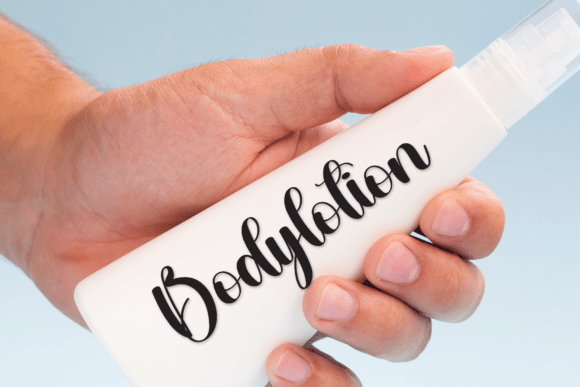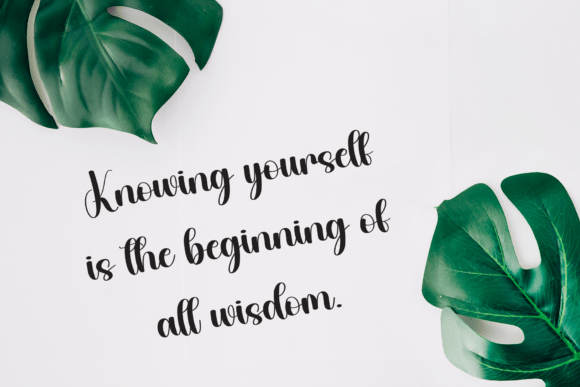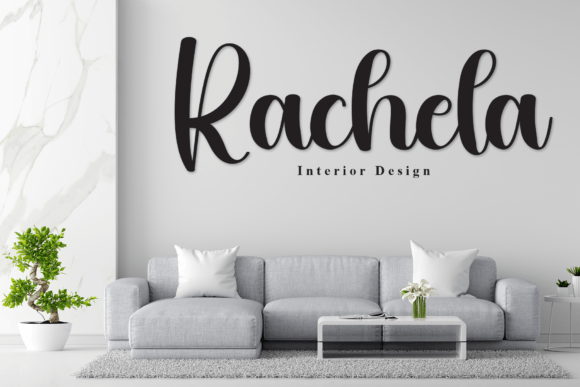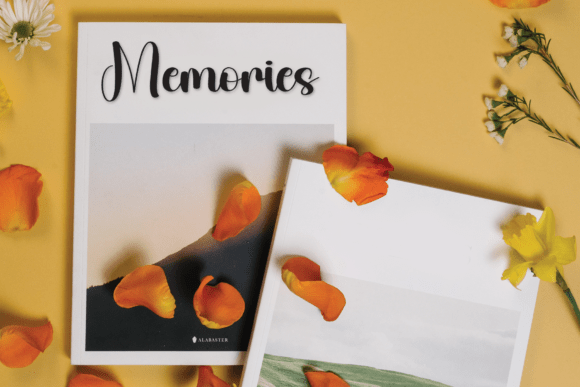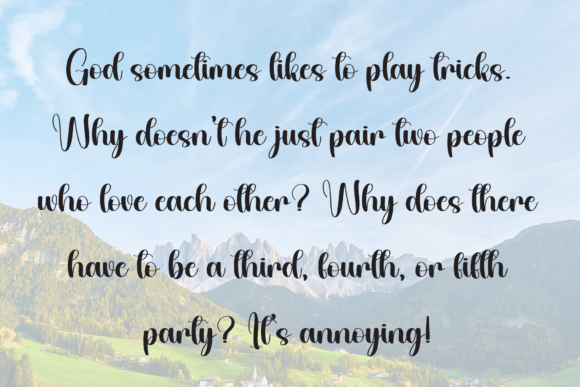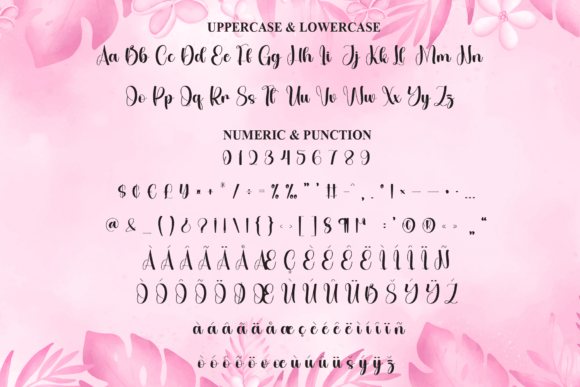
The Perfect Blend of Style and Creativity
Have you ever stared at a blank page, searching for the perfect font to bring your creative vision to life? I know I have. It’s that moment of frustration, followed by excitement, when you stumble upon the perfect font to elevate your project. For designers, finding the right font can make all the difference between a good design and a great one.
Introducing the Barbie Font, a special creative product designed to give you an extraordinary experience. This latest style letter is perfect for wall displays, wedding invitations, social media post logos, and any project that requires a touch of elegance and sophistication. With the Barbie Font, you’ll have access to a wide range of creative possibilities, making it a valuable addition to any designer’s toolkit.
Barbie Font Key Features
- Unique Characteristics: The Barbie Font is known for its playful, cursive script style with swashes and flourishes, making it perfect for feminine and child-friendly designs.
Designer Review: Barbie Font
The Barbie Font is a playful, cursive script that screams “girl power” and nostalgia. I can already imagine it being used for a kids’ birthday party invitation or a fashion magazine headline. Here are some of its strengths:
- ✨ Expressive and whimsical: The font’s flowing lines and curved strokes make it perfect for adding a touch of femininity to any design.
- ✨ Customizable: The font comes in a range of weights and styles, making it easy to adapt to different design needs.
- ✨ Versatile: From fashion to beauty to education, the Barbie Font can be used in a variety of contexts.
- ⚠️ Overly ornate: The font’s cursive style can make it difficult to read at smaller sizes or in dense blocks of text.
- ⚠️ Limited legibility: The font’s flowing lines can also make it challenging to distinguish between similar letters.
Overall, I think the Barbie Font is a fun and creative choice for designs that require a touch of femininity and playfulness. However, it may not be the best choice for serious or technical content. With careful use and attention to legibility, this font can be a great addition to any designer’s toolkit.
The Barbie font is commonly used in:
- Children’s birthday party invitations and decorations.
- Girls’ clothing and accessory labels.
- Children’s book titles and illustrations.
Tips for Getting the Most Out of the Barbie Font
For the best results, use the Barbie font in combination with pastel colors and playful graphics.
Alternatives to “Barbie Font” for Designers
Playfair Display is a high-end, elegant serif font perfect for luxury brands and high-end fashion designers. It’s ideal for creating a sense of sophistication and refinement. Playfair Display is more elegant and sophisticated compared to Barbie Font, which is more playful and childlike.
Pacifico is a beautiful, modern script font perfect for creating a relaxed and casual atmosphere. It’s ideal for designers who want to add a touch of warmth and friendliness to their designs. Pacifico is more casual and laid-back compared to Barbie Font, which is more formal and structured.
Great Vibes is a beautiful, cursive script font perfect for designers who want to add a touch of elegance and sophistication to their designs. It’s ideal for creating a sense of luxury and refinement. Great Vibes is more elegant and sophisticated compared to Barbie Font, which is more playful and childlike.